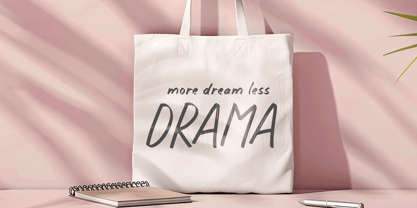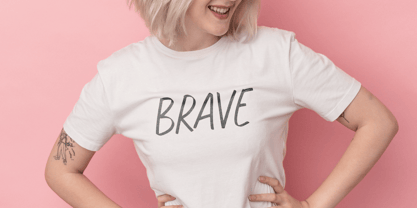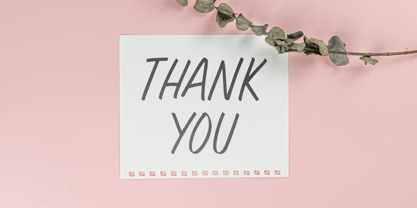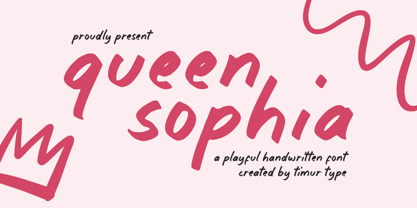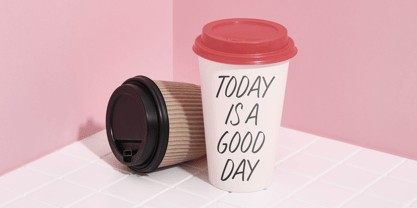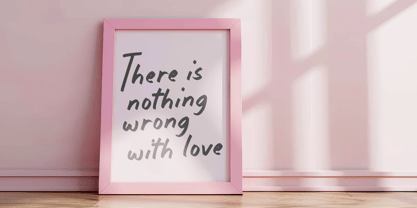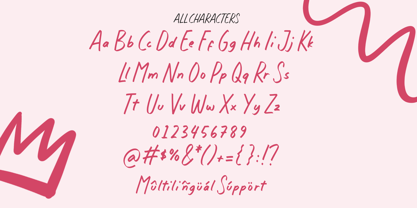
Queen Sophia
by Timurtype
The Queen Sophia Font Family was designed by Wara Sigit Tri Pamungkas and published by Timurtype. Queen Sophia contains 1 styles.
Introduced by Timurtype Studio!
Queen Sophia is a Playful Handwritten Font
This font is an adorable, playful handwritten font with a cute and whimsical charm. Its rounded, bouncy letterforms and gentle curves give it a friendly, approachable feel, making it perfect for adding a lighthearted touch to invitations, greeting cards, or any project that needs a sweet, fun vibe. Queen Sophia brings warmth to your designs with its endearing style.
Queen Sophia Font also supports multilingualism